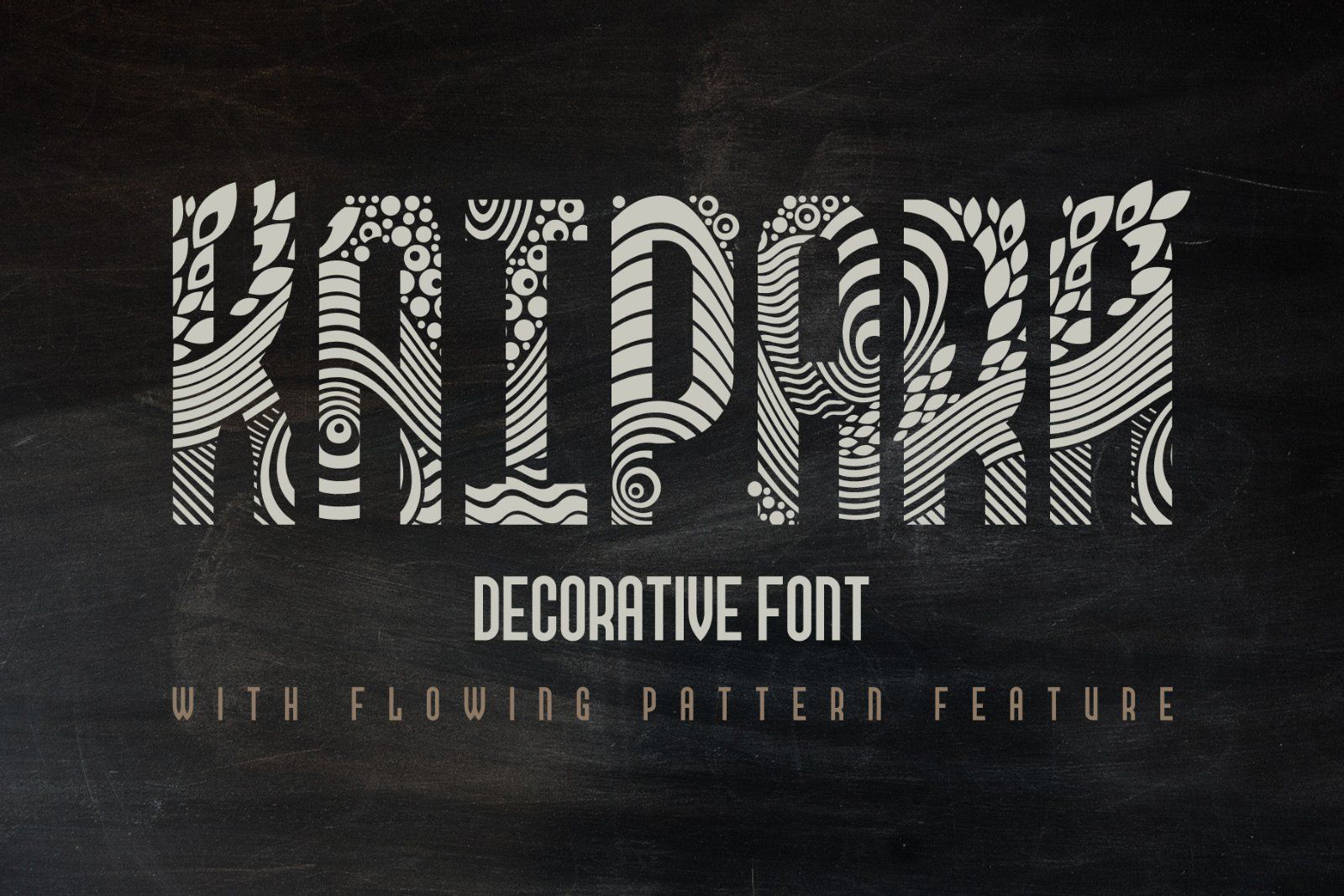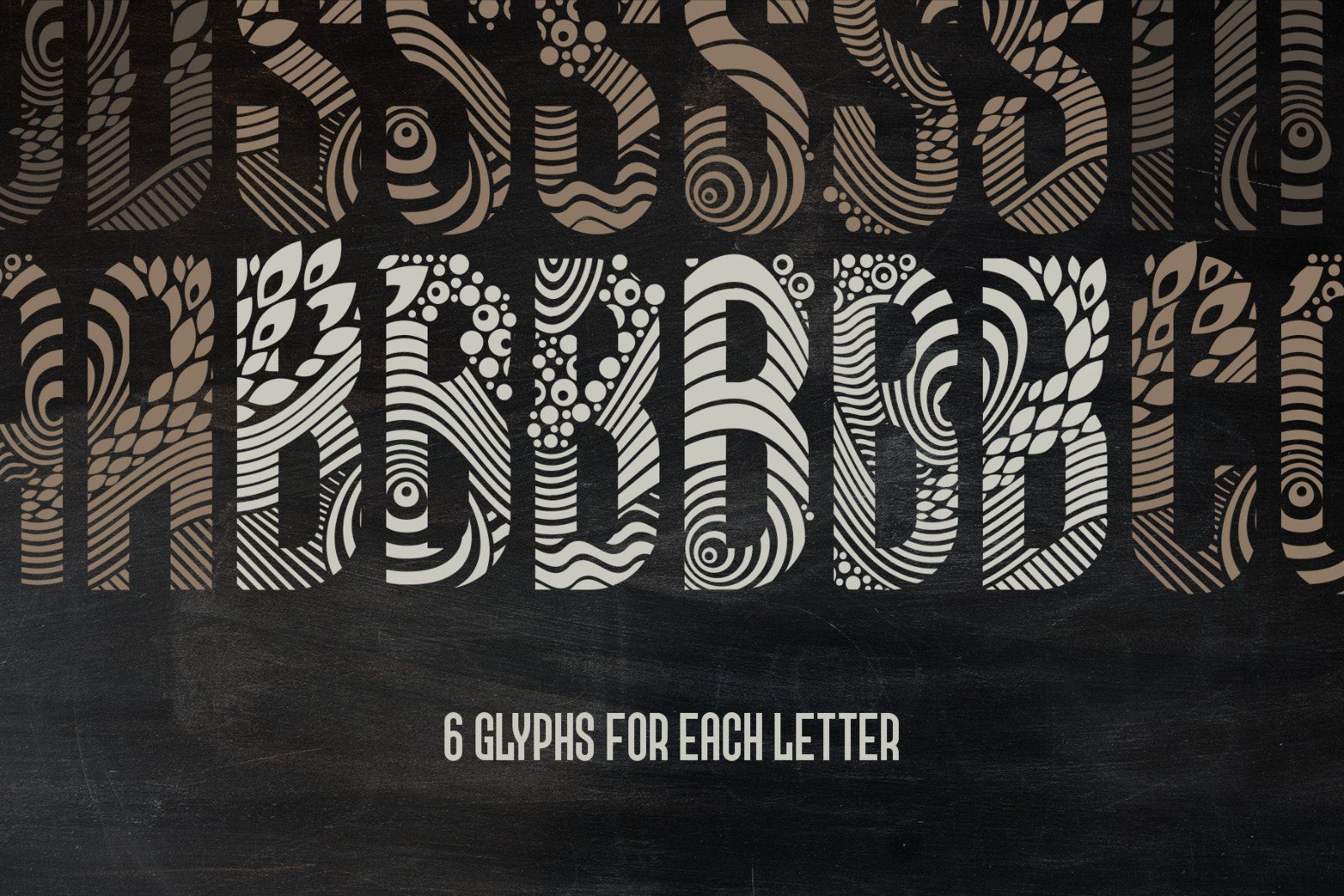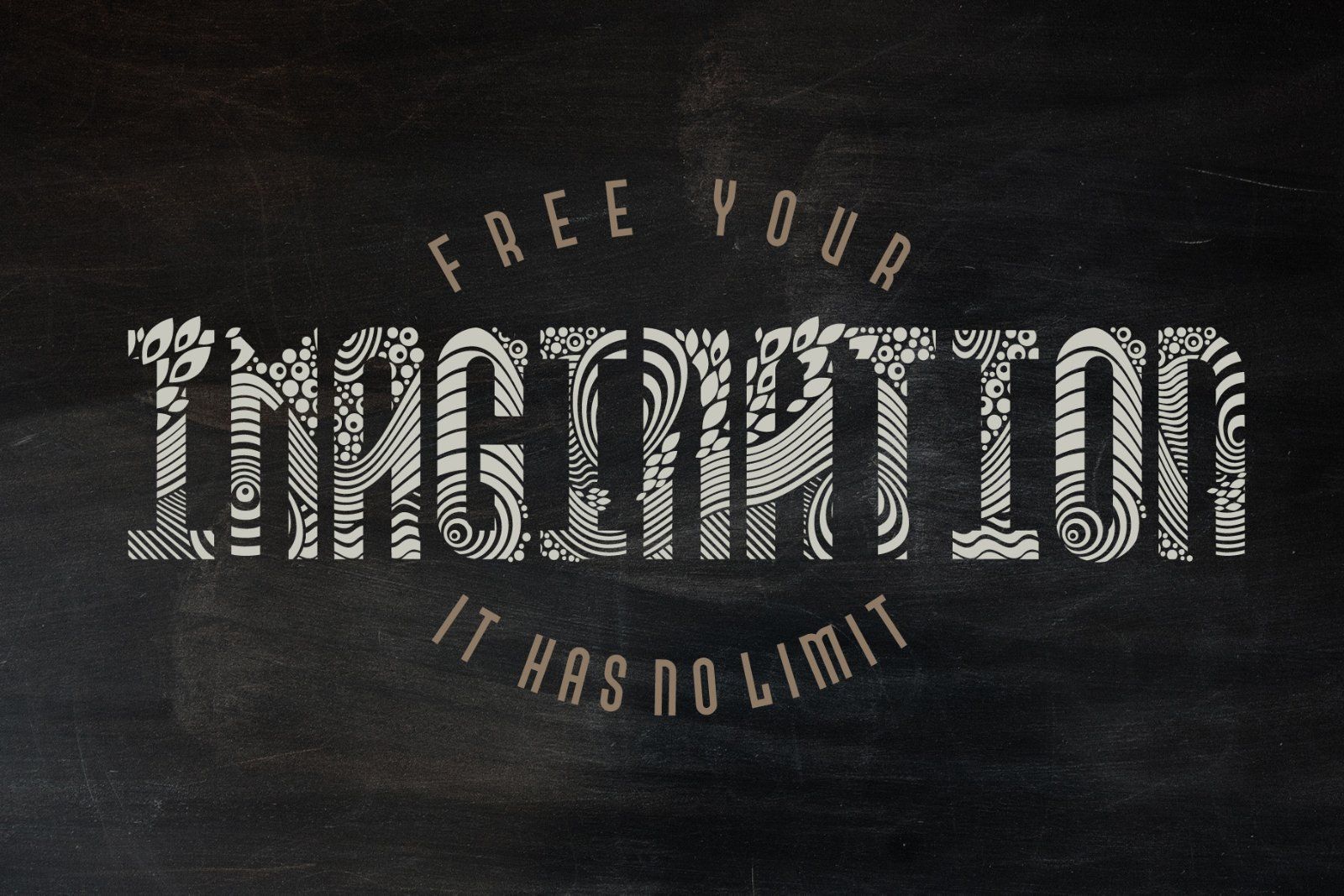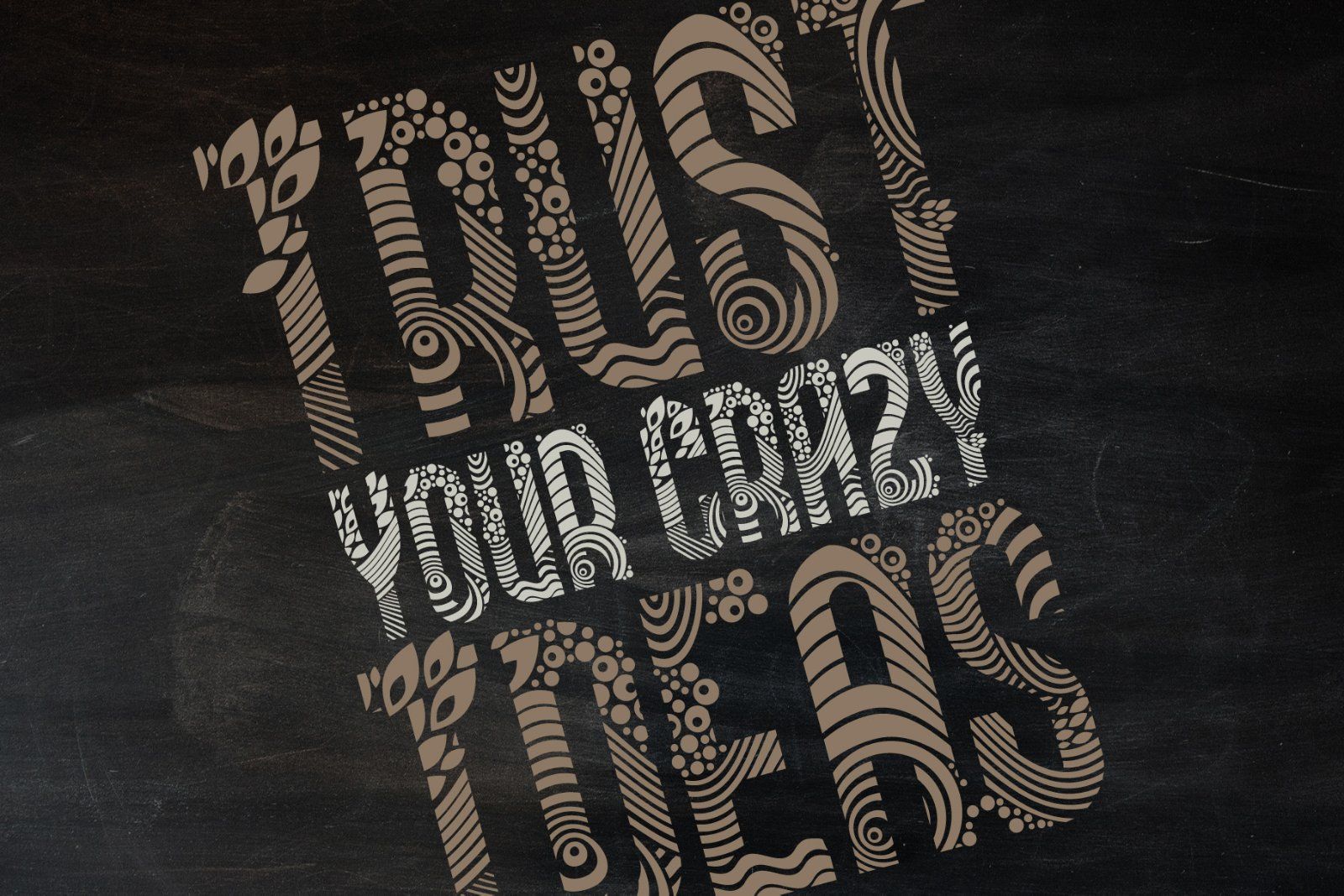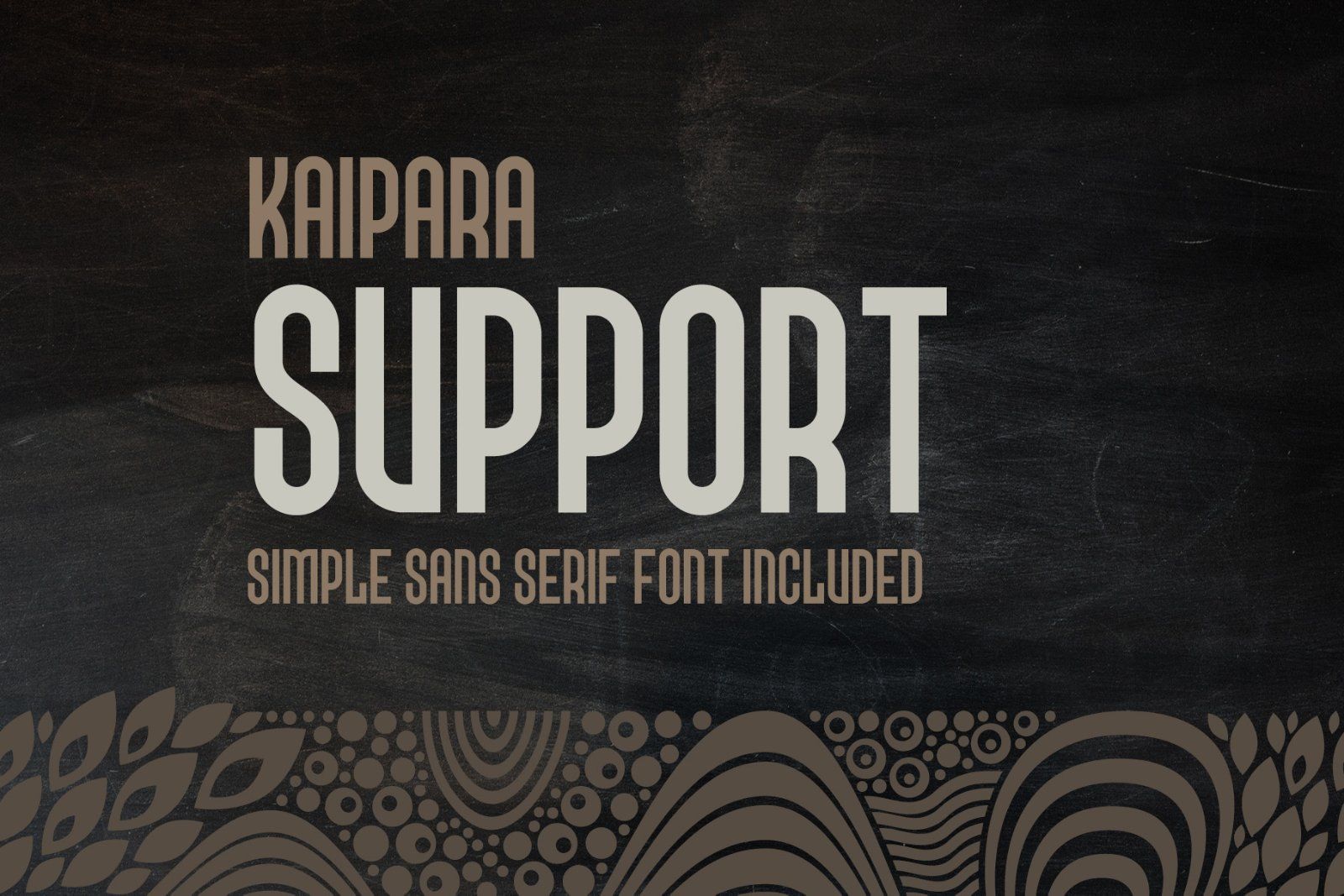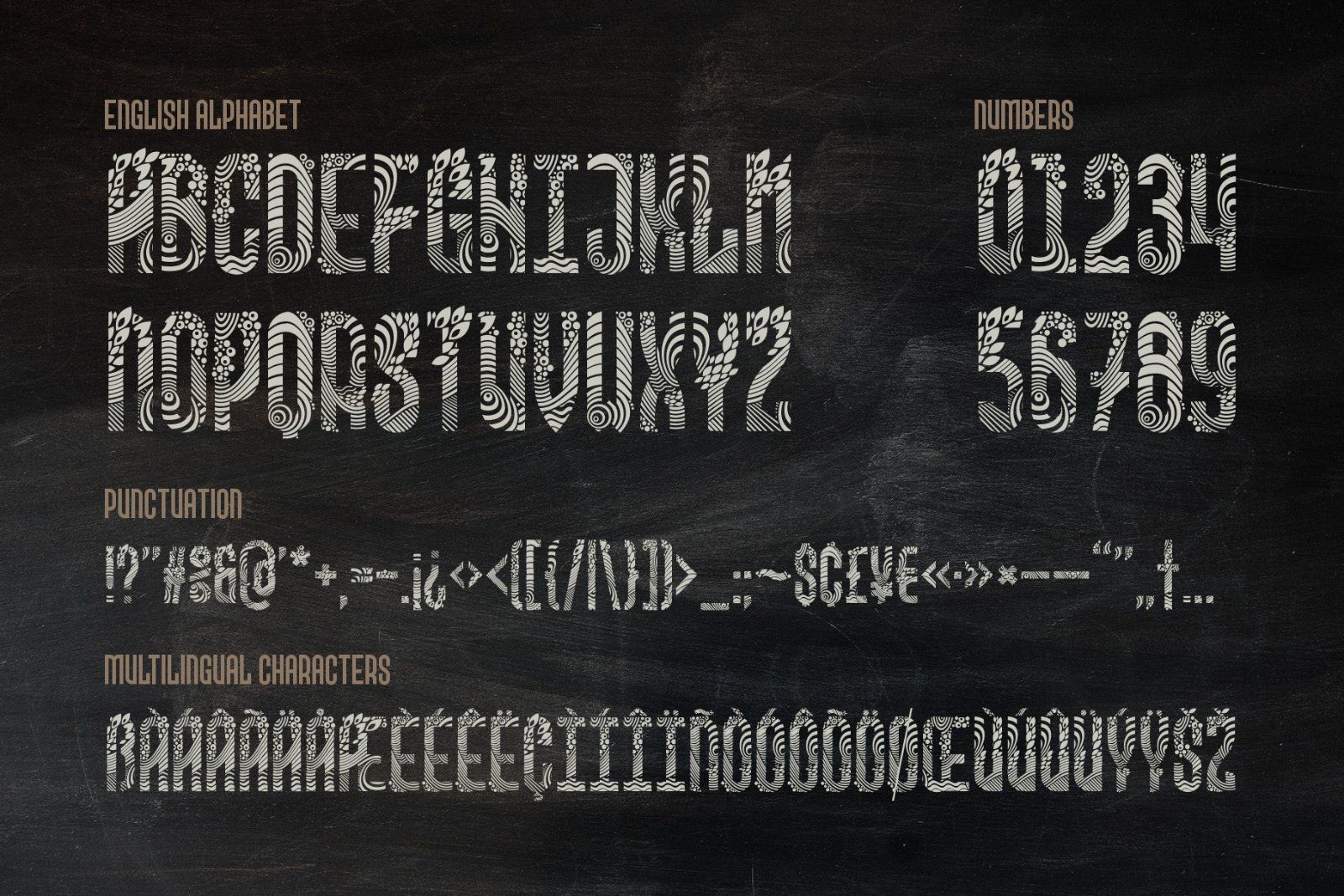
Presenting originally designed decorative font named Kaipara. The main goal of this font is a pattern that flows between the characters. Each letter has six variations that switches automatically to create a solid pattern feeling. Check out that "context alternates" OpenType feature is activated to achieve neccesery result. Also a simple supporting font is available here.
Note: Please note that full pattern effect is working only with English alphabet and numbers. All other characters has only one variation.
Note: Check out that all of your letters has the same case (lowercase or uppercase) to make the effect work properly.